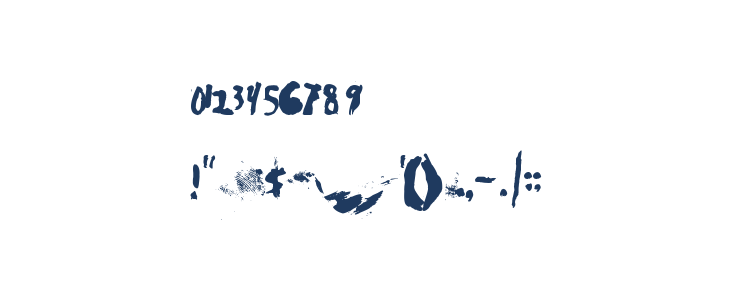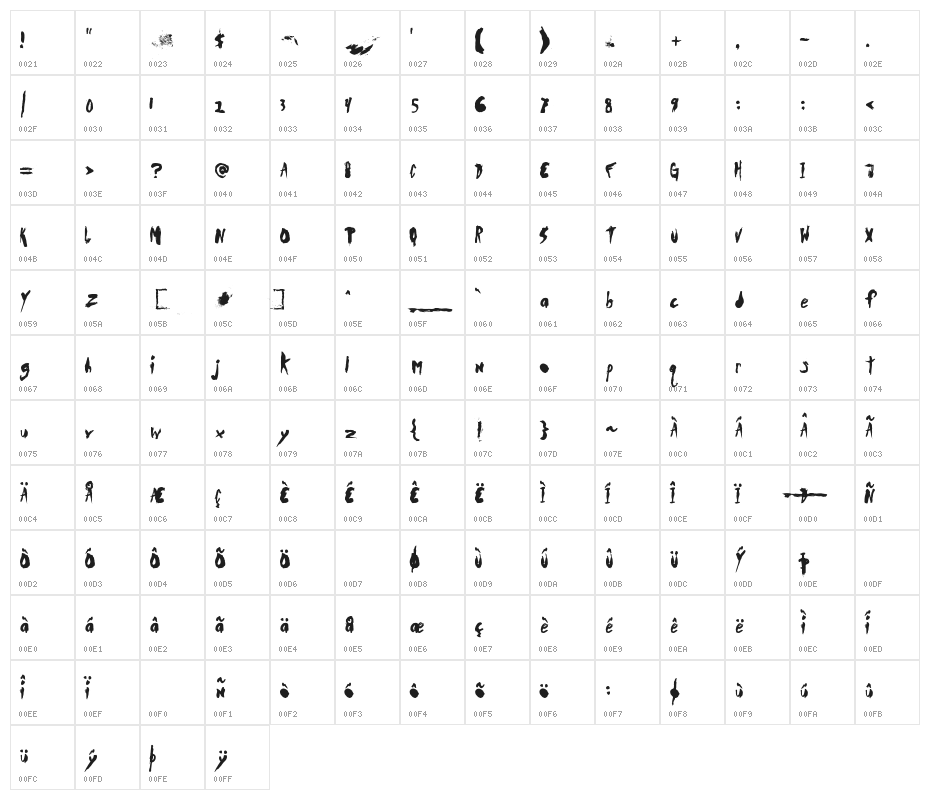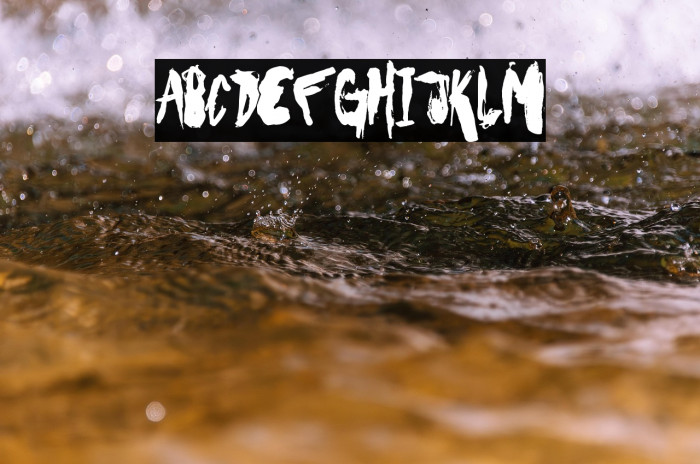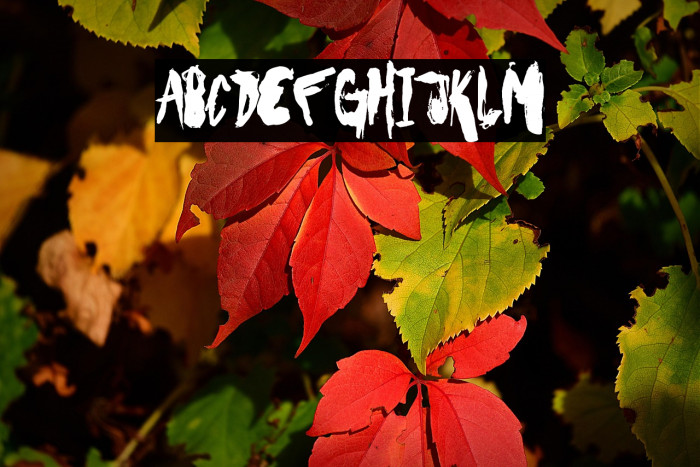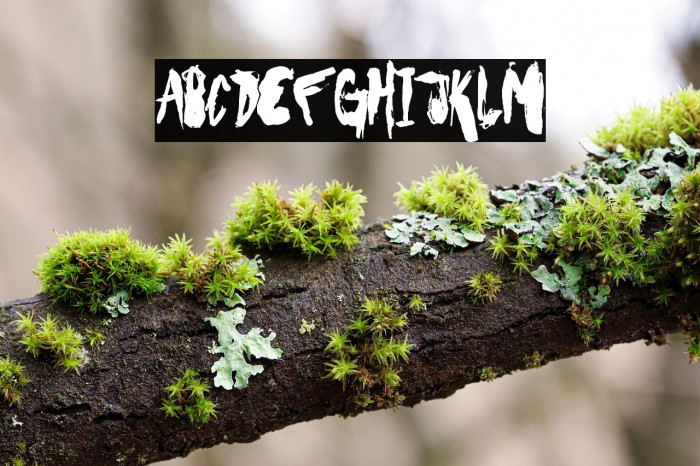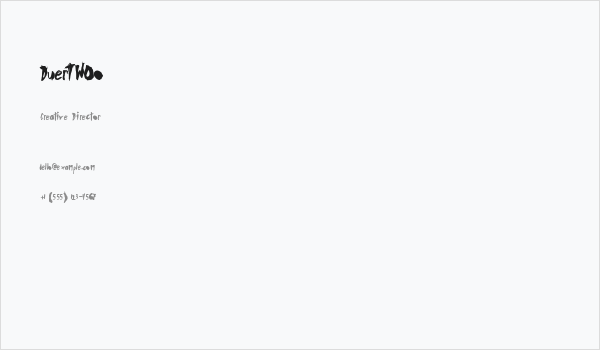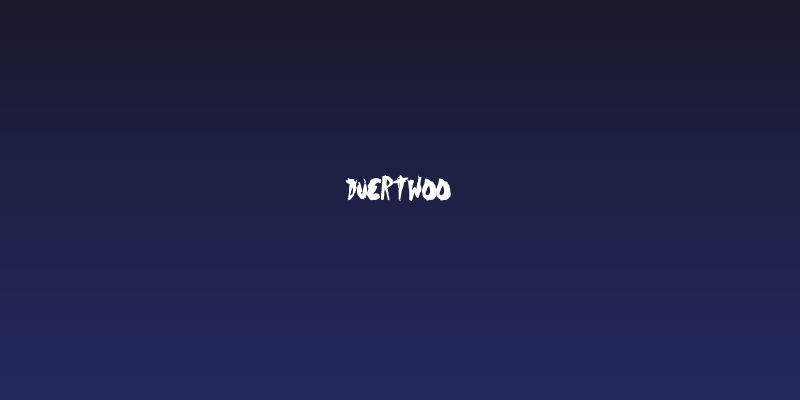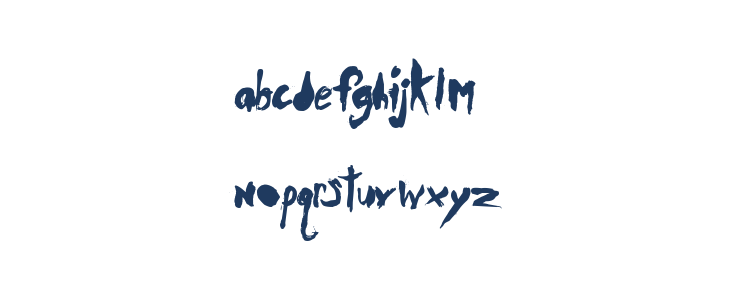
DuerTWOo Font
DuerTWOo Description
This font exhibits a bold, expressive style with a hand-painted appearance. The characters are irregular and dynamic, featuring rough edges and varying stroke widths that give it a raw, artistic feel. The uppercase and lowercase letters maintain a consistent aesthetic, while the numbers and special characters integrate seamlessly with the overall design. This font is ideal for projects that require a dramatic and impactful visual statement, such as posters, album covers, or artistic branding. Its unique style captures attention and conveys a sense of creativity and individuality.
| Overall Style | Artistic, Expressive, Raw |
| Use Case | Headlines, Artistic Branding, Posters |
| Proposed Projects | Ideal for posters, album covers, artistic branding, and any project needing a dramatic visual impact. |